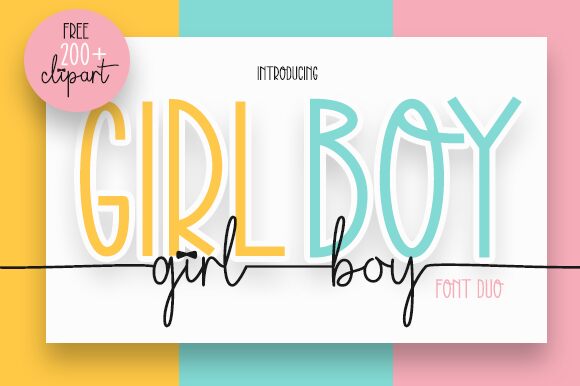
Meet Girl Boy, the handwritten font designed by Danar Nugroho. With its light weight and semi-condensed width, this font offers a playful and youthful vibe perfect for various creative projects. Its handwritten style adds a personal touch to your designs, making it suitable for social media graphics, branding materials, invitations and greeting cards. Use Girl Boy to add a touch of whimsy to your blog headers or stationery designs. This versatile font is sure to make your projects stand out!
Girl Boy